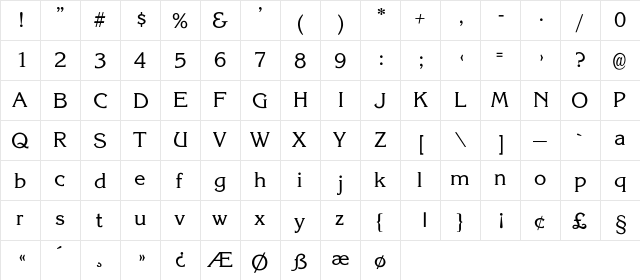
Axial Light Regular
Design Context for Axial Light Typeface
Axial Light takes a measured approach to typography — its balanced proportions and neutral character make it a reliable workhorse for both digital and print work. The delicate stroke weight brings airiness and refinement to layouts.